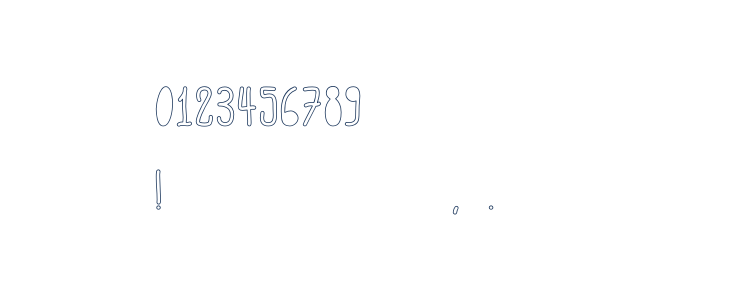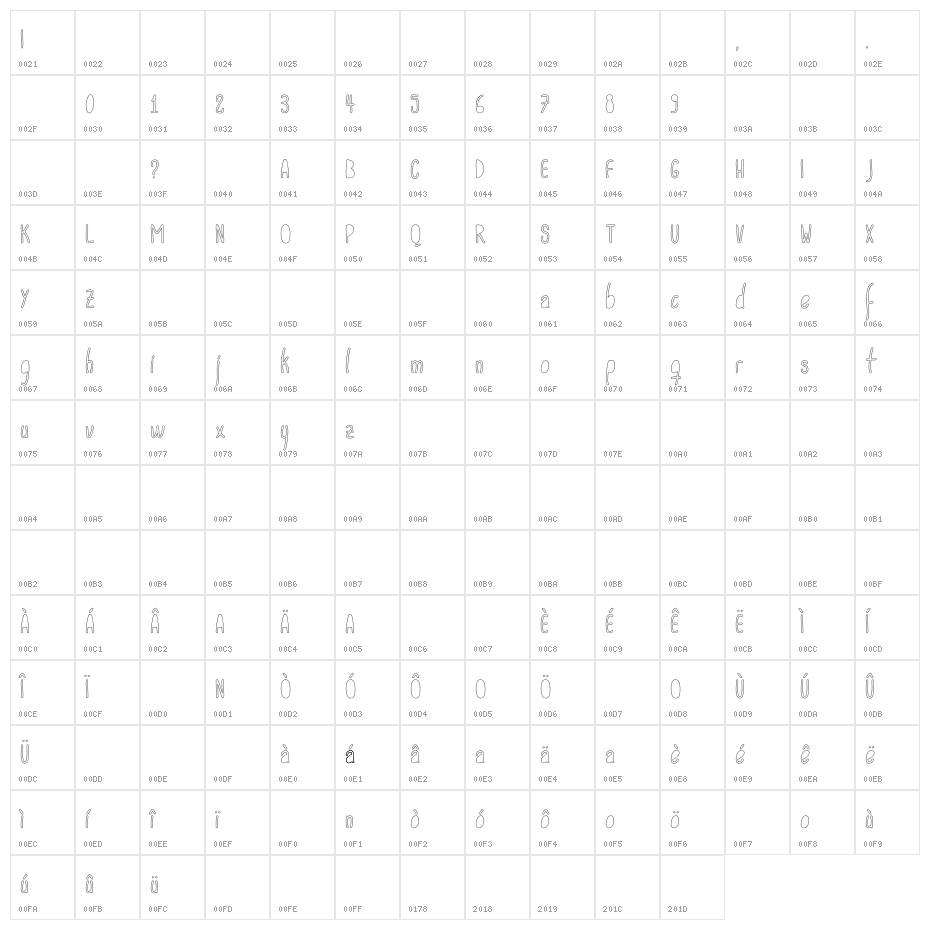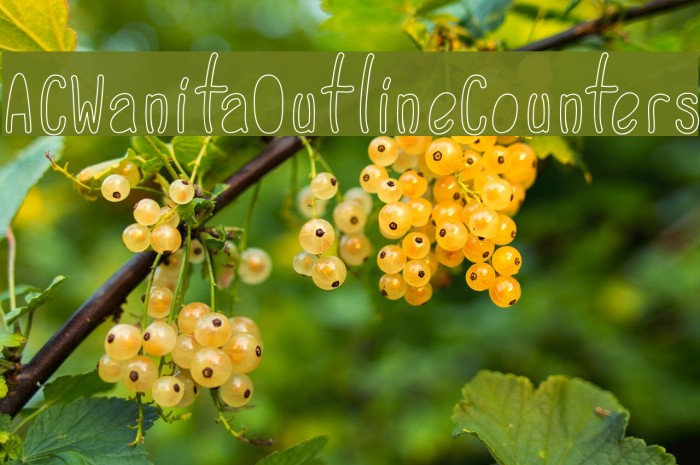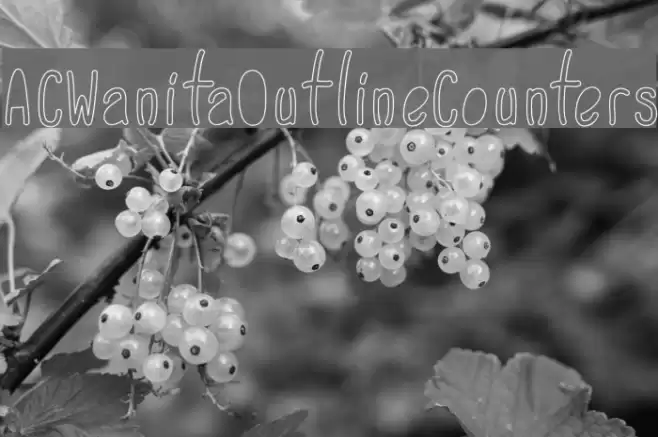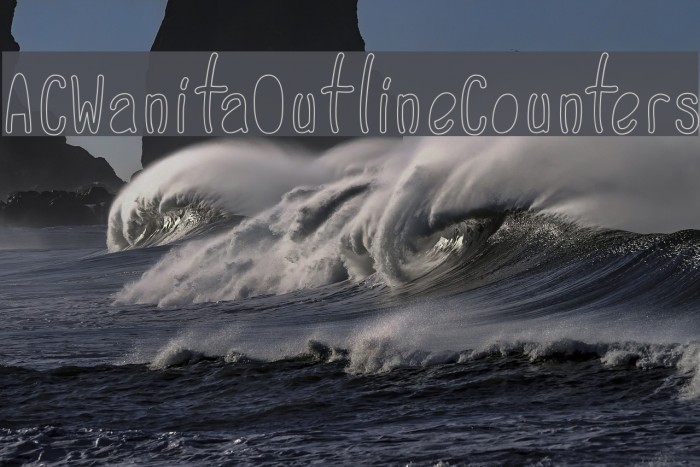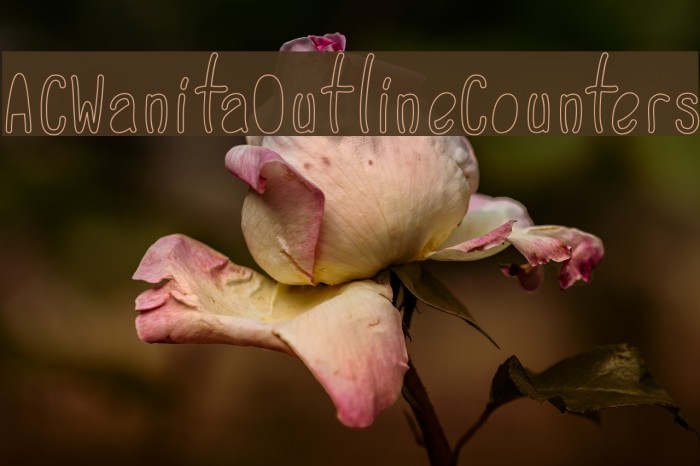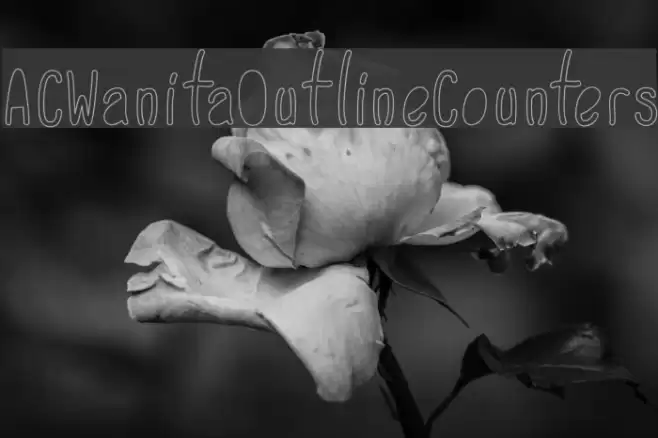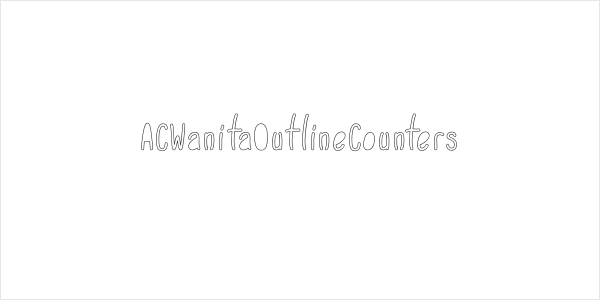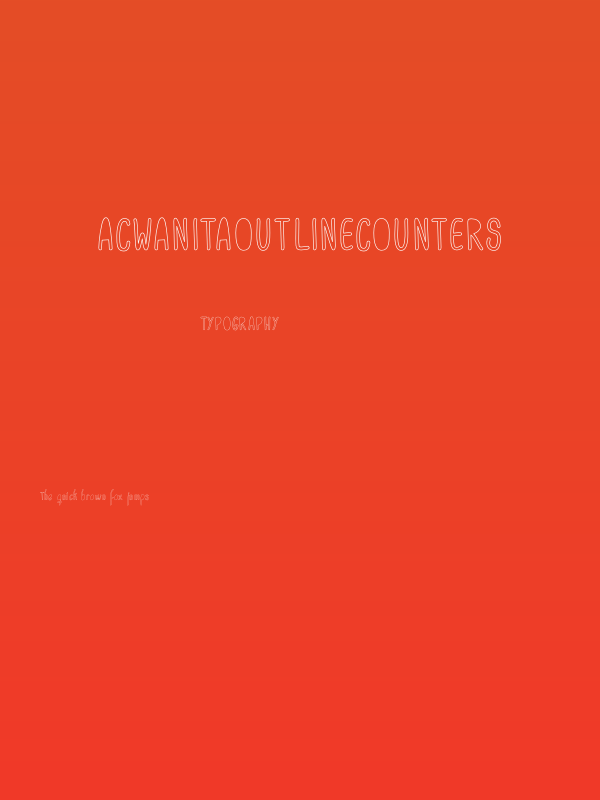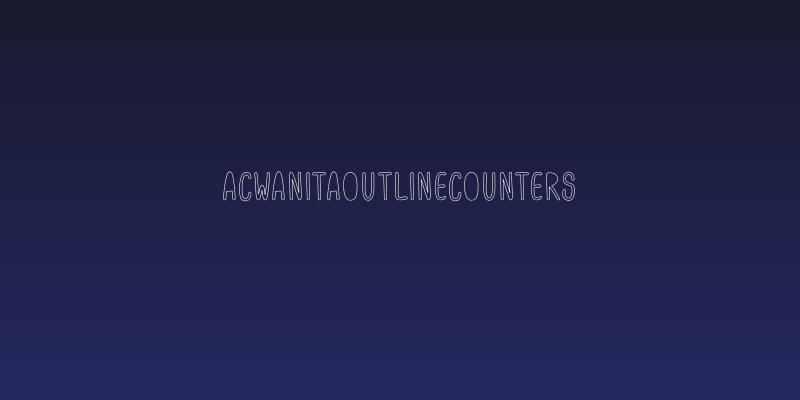
ACWanitaOutlineCounters Font
ACWanitaOutlineCounters Description
This font features a playful and whimsical outline style, characterized by its hollow letterforms that create a light and airy appearance. The strokes are consistent in width, giving it a uniform look while maintaining a hand-drawn feel. The uppercase and lowercase letters are well-proportioned, with a slight slant that adds to its casual and friendly demeanor. The numerals and special characters follow the same design principles, ensuring cohesion across all glyphs. This font is ideal for projects that require a touch of creativity and informality, making it suitable for children's books, playful branding, or artistic posters.
| Overall Style | Whimsical, Playful |
| Proposed Projects | Children's books, playful branding, artistic posters, casual invitations. |